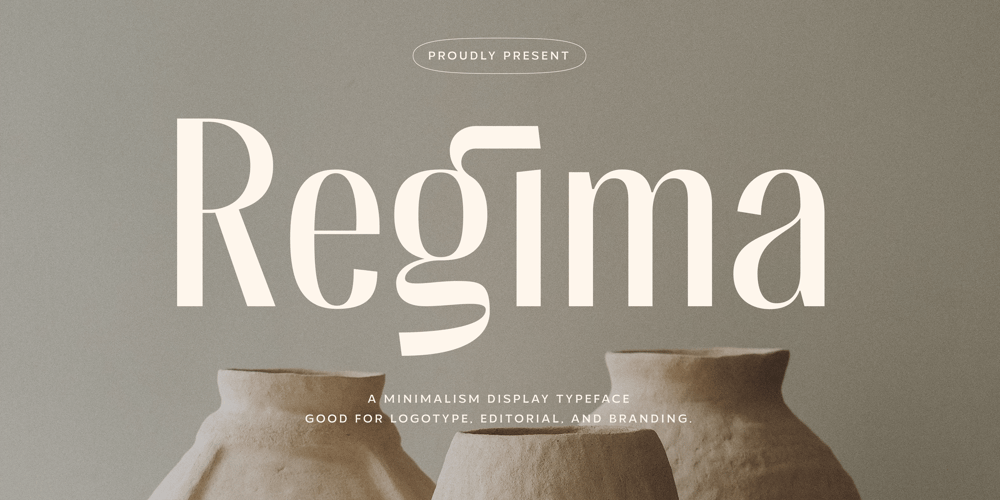
Regima Font Family was designed by Umar Al Farouq and published by Martype co. Regima contains 1 styles and family package options. Regima, a minimalist display font, perfect for logotype, branding, editorial and etc. Regima is a sleek and modern minimalist display font that is tailor-made for logotypes, branding, editorial designs, and more. With its clean lines and simple yet sophisticated design, Regima exudes an air of elegance and professionalism.